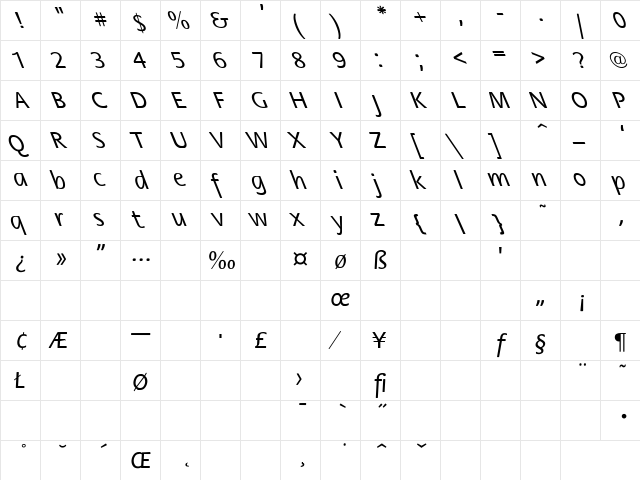
Flora-Normal Lefty Regular
Design Context for Flora-Normal Lefty Typeface
Flora-Normal Lefty takes a measured approach to typography — its balanced proportions and neutral character make it a reliable workhorse for both digital and print work.
Pro Tip: Use Flora-Normal Lefty in both headline and body roles to test its range before committing to a single application.